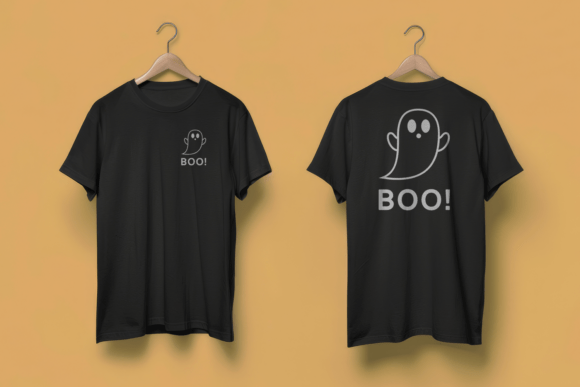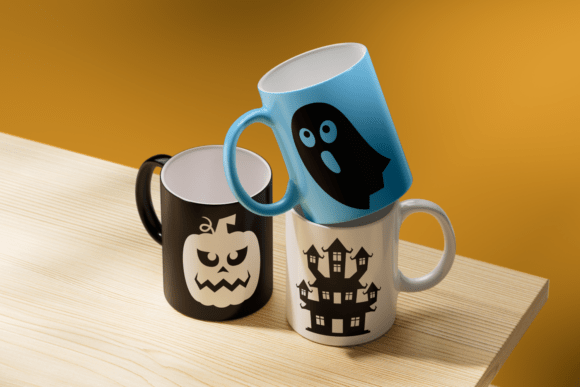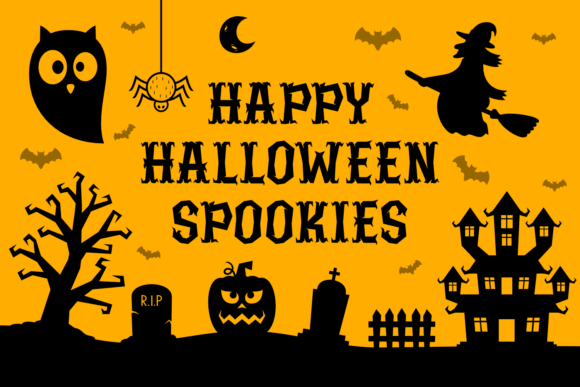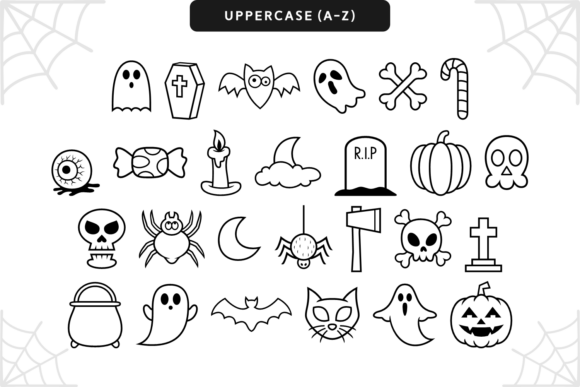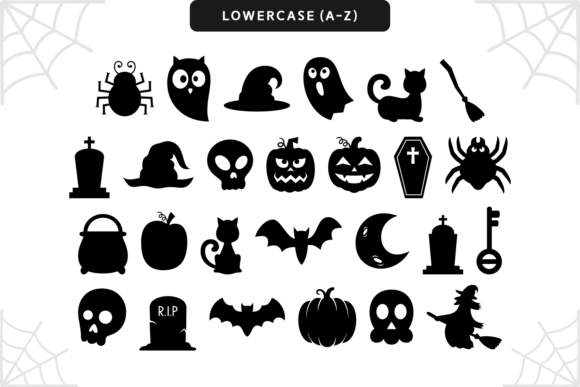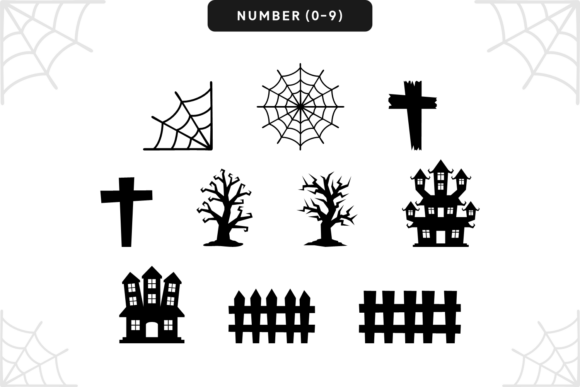
The Magic of Around Halloween Font: A Designer’s Delight
I still remember the year I was tasked with creating a Halloween-themed design project for a client. I had a clear vision of what I wanted to achieve, but I was struggling to find the perfect font that would bring my ideas to life. That’s when I stumbled upon the “Around Halloween Font”. It was like a treasure trove of spooky icons and designs that instantly elevated my project. In this article, I’ll share my experience with this incredible font, its features, and how to make the most of it in your design projects.
- ✨ Extensive library of Halloween-themed icons: The Around Halloween Font boasts an impressive collection of classic Halloween imagery, from ghosts and skulls to bats, pumpkins, and haunted houses.
- ✅ Organized character sets: The font is divided into distinct categories, making it easy to navigate and find the perfect design element for your project.
- 🔍 Highly versatile: Whether you’re a graphic designer, crafter, or content creator, this font is perfect for a wide range of design projects, from invitations and posters to social media graphics and more.
While the Around Halloween Font is an excellent resource, there are a few things to keep in mind:
- 🤔 Learning curve: With so many characters and design elements to explore, it may take some time to get familiar with the font’s organization and features.
- ⚠️ Character overlap: Some characters may have similar designs, so be sure to explore the entire font to avoid duplication.
The Story Behind Around Halloween Font
The Around Halloween Font was created by a team of designers who wanted to bring a touch of spooky magic to the world of typography. Inspired by classic Halloween decorations and iconography, they crafted a font that’s both eerie and endearing. Whether you’re a professional designer or a creative hobbyist, this font is sure to delight.